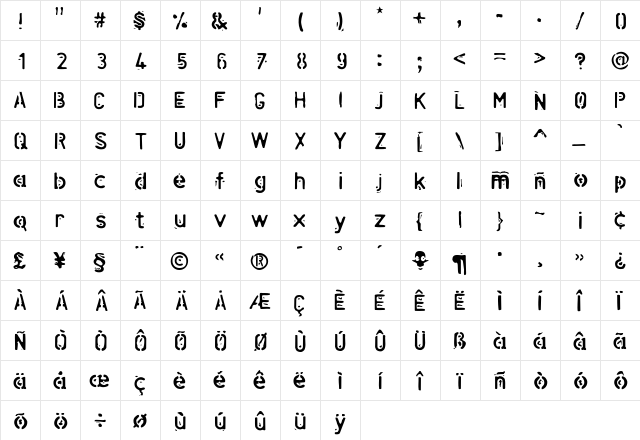
Helix Medium
Design Context for Helix Typeface
Helix is a composed and adaptable typeface that performs quietly and consistently across a wide range of design contexts.
Pro Tip: Pair Helix with a font of contrasting weight or personality to build a more expressive typographic hierarchy.